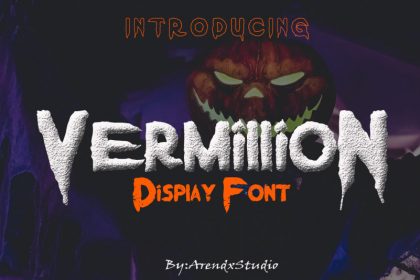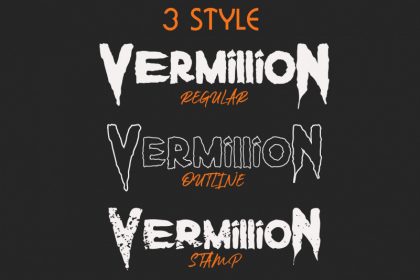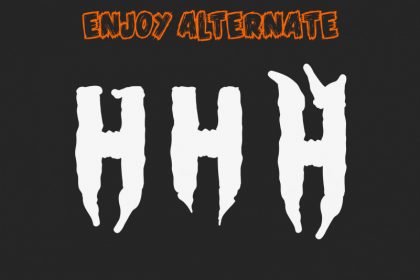
Vermillion Display Font
Vermillion fonts are fonts with strong character and inspired by horror films suitable for display and for your design project You will find font in both OTF, TTF,WOFF formats. No special software is required to use Vermillion Font, just install it as you normally do on your system.